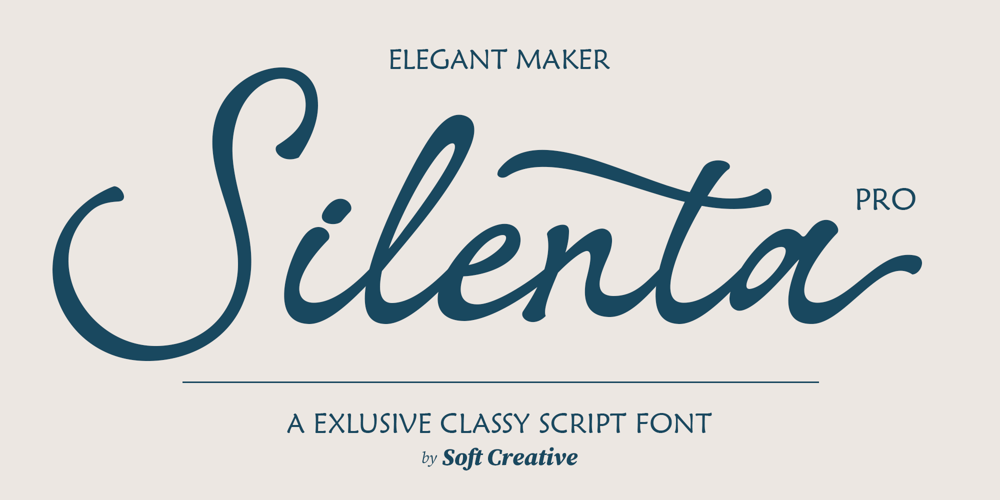
Silenta
Silenta font
Silenta Font Family was designed by Muhajir Akarim and published by Soft Creative. Silenta contains 1 styles and family package options. Introducing Silenta,Pro script fonts have irregular thickness and slightly rounded edges, making the letters slightly different from regular script fonts. Silenta is a great choice for a relaxed yet inviting aesthetic.Silenta is perfect for your creative projects such as logotypes, invitations, cards, product packaging, technology quotes, letterheads, posters, clothing designs, etc.Silenta also has some unique alternatives and binders, Silenta also has features with multi-language support that can make your project even more interesting.